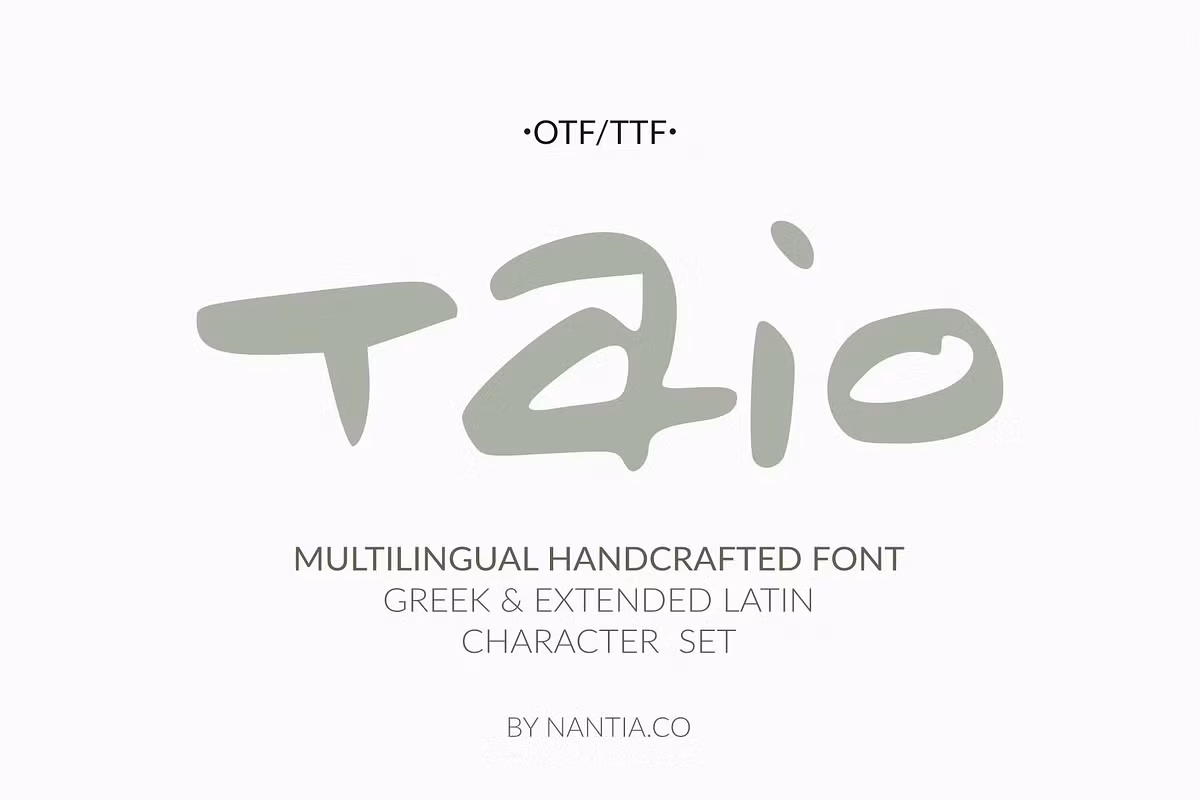
You must purchase this font for commercial use. However, you can download Greek Font Taio Handwritten Font Free Download for testing purposes. Taio is a beautiful handwritten font designed with a relaxed and authentic feel. With its flowing strokes and natural character, this font is ideal for creative projects such as branding, invitations, logos, greeting cards, and social media content.
The casual yet elegant design of Greek Font Taio adds a personal touch to your typography while maintaining readability and charm. Whether you're working on a casual branding project, crafting a custom logo, or designing an event invitation, this font will give your designs a handmade, artistic vibe.